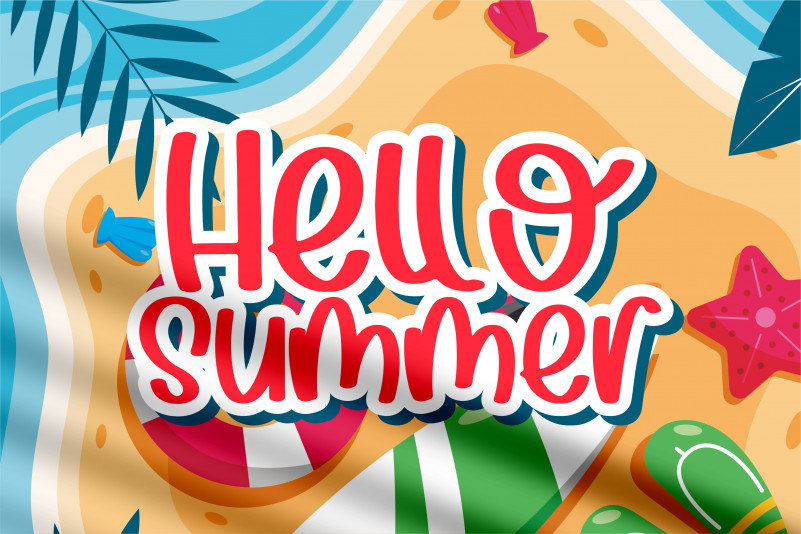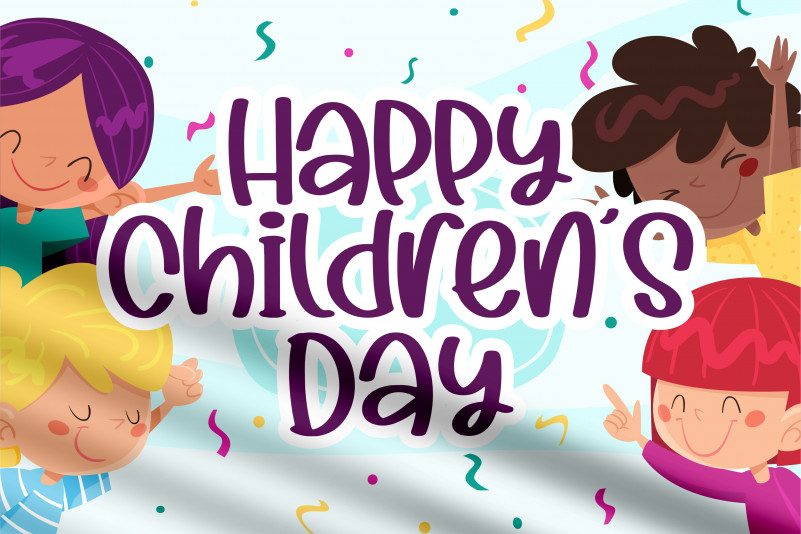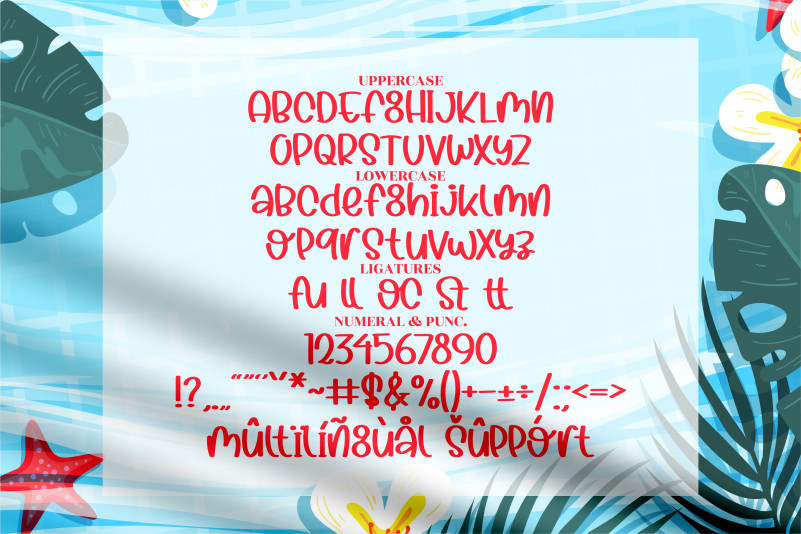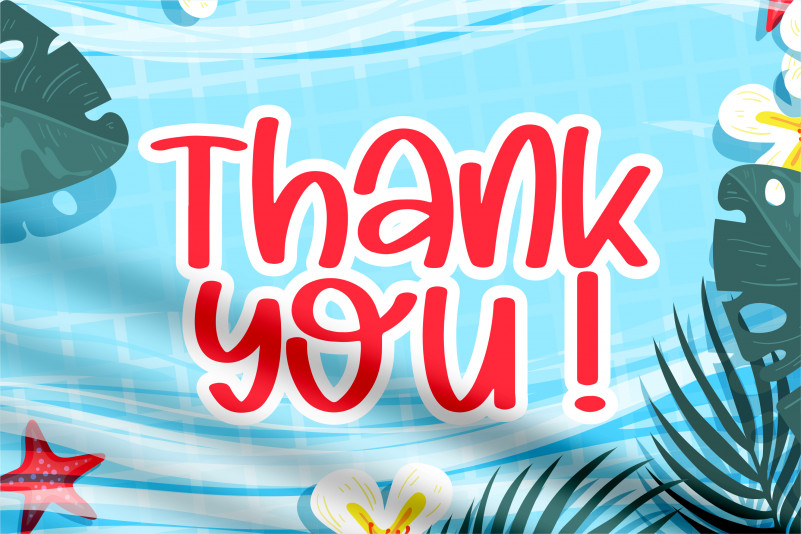
Summer Flowers Font
Summer Flowers Brush Font
This is a quirky handwritten font, suitable for any projects such as: logos, branding projects, homeware designs, product packaging, mugs, quotes, posters, shopping bags, t-shirts, book covers, name card, invitation cards, greeting cards, label, photography, watermark, special events, and all your other lovely projects that need a beautiful quirky taste.